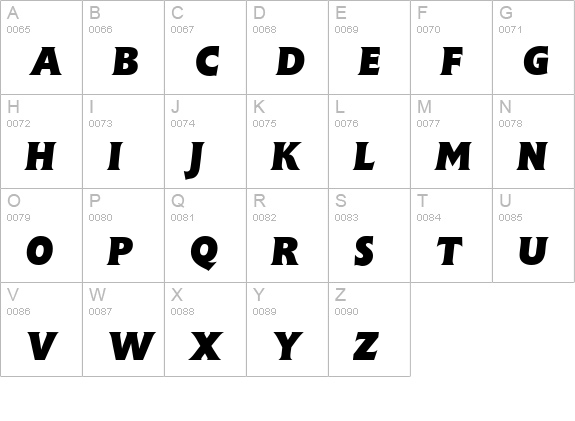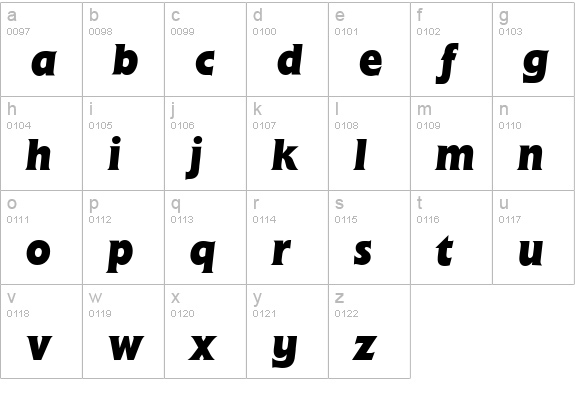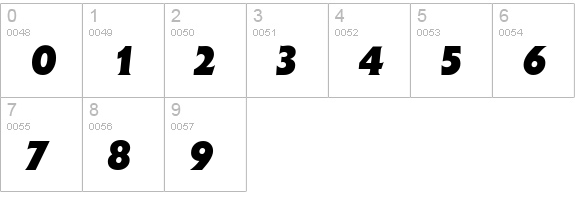
Fleming-Heavy-Italic is a heavy, high-impact, italic variant in the Fleming typeface family \xE2\x80\x94 well suited to high-impact headlines, posters, and display advertising.
Fleming-Heavy-Italic is a bold and elegant font that exudes a sense of sophistication and modernity. Its slanted design adds a touch of flair to any creative project, making it perfect for headlines, quotes, and branding materials that demand attention. The sturdy weight of the characters gives this font a strong presence while maintaining readability and legibility. Best of all, Fleming-Heavy-Italic is available for free download at FontsMarket.com. This means that you can easily access this versatile font to elevate your designs without any cost. Whether you're working on a professional project or a personal endeavor, Fleming-Heavy-Italic's timeless style and accessibility make it a valuable addition to any designer's toolkit. Get your hands on this striking font today and take your creations to the next level.